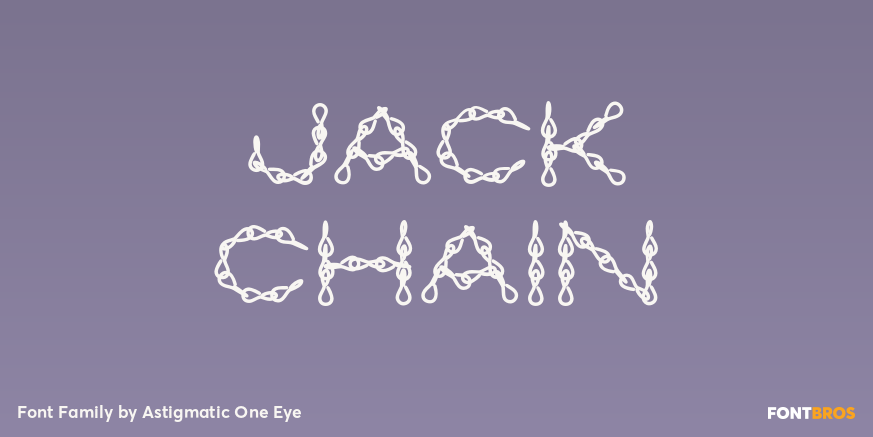
HomeFont BrosSpecial EffectJack Chain Special EffectUrban Jack Chain FacebookTwitterPinterestWhatsApp 1 of 1 About Jack Chain A tough and industrial typeface, Jack Chain is easily one of the most detailed chain typefaces available.  DOWNLOAD NOW People also explored Rotherdam Signature Font Attention Seeker Jullyana Font Shopie Font Genesa Gabrielle Hannah Font Hella Fella Font Striped Pencil Font Senlot Sans 79 0 TagsJack Chain Font Previous articleGreyfriarsNext articleEnamel Brush LEAVE A REPLY Cancel reply Comment: Please enter your comment! Name:* Please enter your name here Email:* You have entered an incorrect email address! Please enter your email address here Website: Save my name, email, and website in this browser for the next time I comment. Personal Use Free Wintersoul Personal Use Free Read more about this font Farmgarden Personal Use Free Read more about this font Black Personal Use Free Read more about this font Stone Garden Personal Use Free Read more about this font BLOG Transform Your Website: Elevate Your Typography with 7 Best Web Font Generators Are you ready to transform your website's typography from ordinary to extraordinary? Great! Today, we're diving into the world of web font generators, which... Free Fonts Risk: Why Free Fonts Can Be Dangerous for Designers Best Fonts for T-Shirt Design – Top 2025 Picks Elegant Wedding Invitation Fonts – Handwritten & Script Fonts